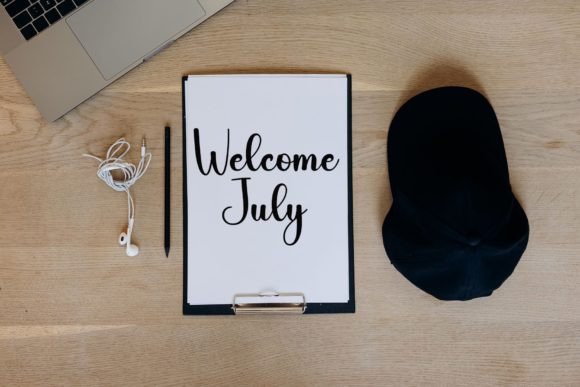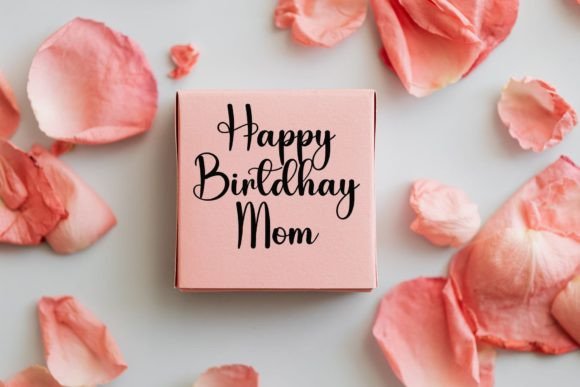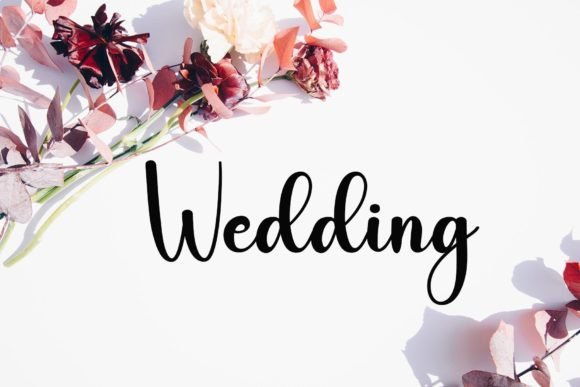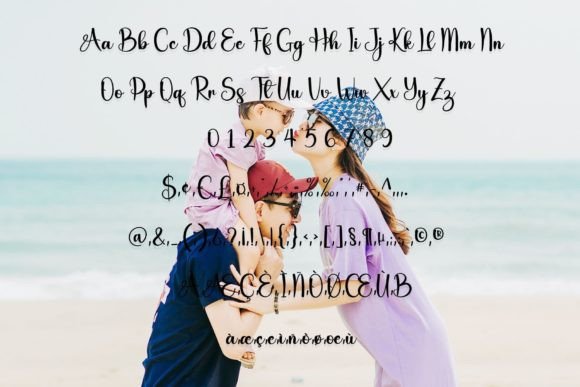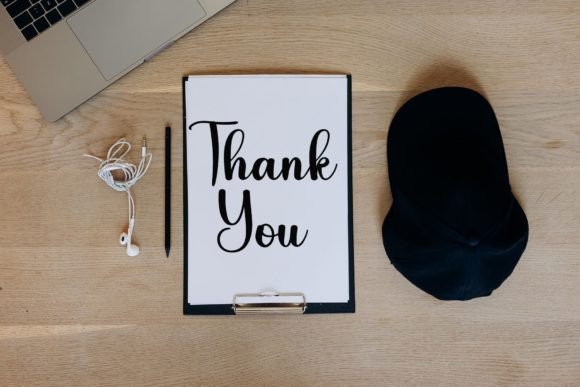
Introducing Day Blissful Font: The Sweet and Lovely Handwritten Font for Your Designs
Are you a designer or crafter looking for a font that can add a touch of sweetness and loveliness to your projects? Look no further than Day Blissful Font! This beautiful handwritten font is perfect for a wide range of designs, from invitations and greeting cards to logos and branding materials. In this article, we’ll take a closer look at Day Blissful Font and explore its unique features, uses, and benefits.
What is Day Blissful Font?
Day Blissful Font is a sweet and lovely handwritten font that is sure to capture your heart. Its natural and unique style makes it incredibly fitting to a large pool of designs, from feminine and elegant to playful and whimsical. The font’s creator has carefully crafted each letter to ensure that it is not only beautiful but also highly legible, making it perfect for use in a variety of projects.
Key Features of Day Blissful Font
So, what makes Day Blissful Font so special? Here are some of its key features:
- Handwritten style: Day Blissful Font is a true handwritten font, with each letter carefully crafted to give it a natural and unique feel.
- Sweet and lovely: The font has a sweet and lovely quality that makes it perfect for designs that require a touch of warmth and personality.
- Highly legible: Despite its handwritten style, Day Blissful Font is highly legible, making it perfect for use in body text as well as headings and titles.
- Versatile: The font is incredibly versatile, and can be used in a wide range of designs, from invitations and greeting cards to logos and branding materials.
Uses for Day Blissful Font
So, what can you use Day Blissful Font for? The possibilities are endless! Here are a few ideas to get you started:
- Invitations and greeting cards: Add a touch of sweetness and loveliness to your invitations and greeting cards with Day Blissful Font.
- Logos and branding materials: Use Day Blissful Font to create beautiful and unique logos and branding materials that will help your business stand out.
- Social media graphics: Add a personal touch to your social media graphics with Day Blissful Font.
- Blog and website design: Use Day Blissful Font to add a touch of personality to your blog or website.
Benefits of Using Day Blissful Font
So, why should you choose Day Blissful Font for your designs? Here are just a few benefits:
- Unique and creative: Day Blissful Font is a unique and creative font that will help your designs stand out from the crowd.
- Easily readable: The font is highly legible, making it perfect for use in body text as well as headings and titles.
- Time-saving: With Day Blissful Font, you can create beautiful designs in no time, saving you time and effort.
Tips for Using Day Blissful Font
Here are a few tips for using Day Blissful Font in your designs:
- Experiment with different colors: Day Blissful Font looks great in a variety of colors, so don’t be afraid to experiment and find the perfect color for your design.
- Pair with other fonts: Day Blissful Font pairs well with other fonts, so try combining it with a bold font for headings and a clean font for body text.
- Use it for emphasis: Use Day Blissful Font to add emphasis to certain words or phrases in your design.
In conclusion, Day Blissful Font is a sweet and lovely handwritten font that is perfect for designers and crafters looking to add a touch of personality to their projects. Its natural and unique style makes it incredibly fitting to a large pool of designs, and its highly legible and versatile nature makes it perfect for use in a wide range of projects. So why not give Day Blissful Font a try and see the difference it can make to your designs?